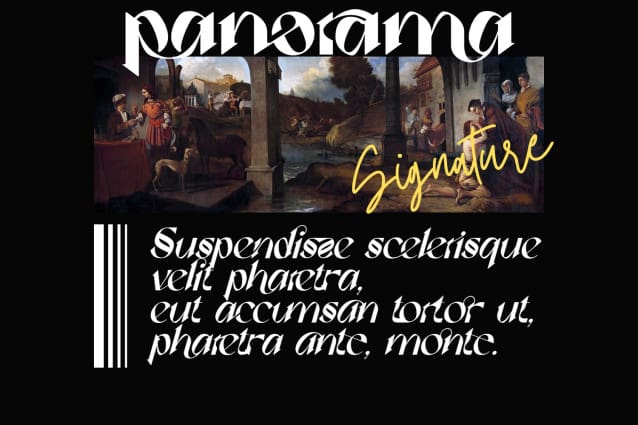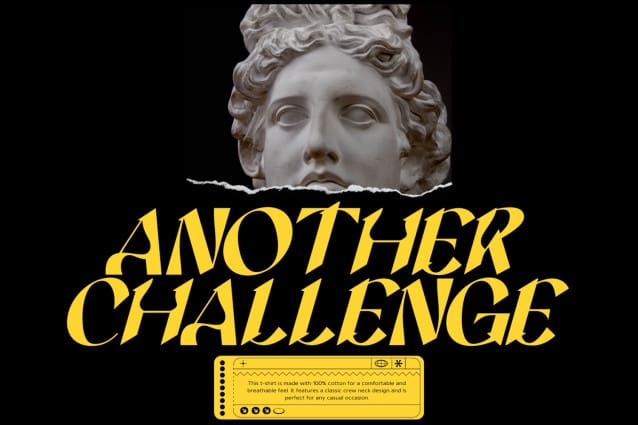
Exploring Constantly Font
Exploring Constantly Font – A serif modern and classic typeface that has own unique style & modern look. This font is both modern and nostalgic and works great for logos, magazine, social media. Already matched up and ready to be used together for your next design! This typeface is perfect for an elegant & luxury logo, book or movie title design, fashion brand, magazine, clothes, lettering, quotes, and so much more.
Exploring Constantly Font was built with OpenType features and includes 100 ligatures, alternate, numbers, punctuation, and it also supports other languages.